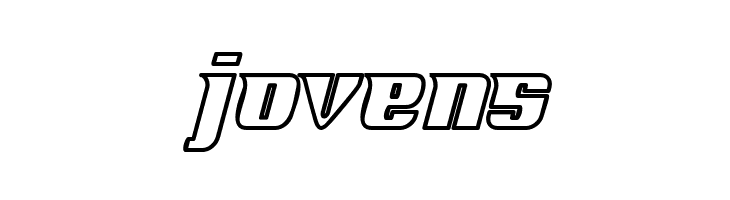
Laia the Great Blondie Font
- Font: Laia the Great Blondie
( Fonts by Dieter Schumacher )
A bold, geometric outline font with a modern and futuristic style.